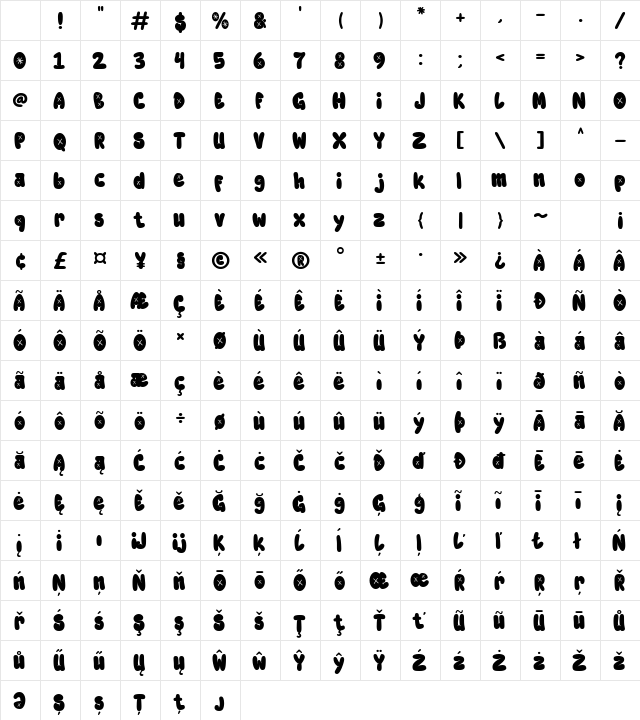
Complete Graffiti Bubble - Demo Version Regular glyph index. Displaying only characters natively supported by Graffiti Bubble - Demo Version Regular font.
Graffiti Bubble - Demo Version has an approachable, lighthearted character - its loose, expressive forms are well-suited to children's content, casual branding, and fun-first design.
Font Pairing: Pairs well with a rounded or humanist sans for body copy, maintaining the friendly tone without relying on Graffiti Bubble - Demo Version to carry extended reading.
Pro Tip: Use Graffiti Bubble - Demo Version at larger display sizes where its expressive character can land. Pair with a clean, simple sans for body copy to maintain readability.